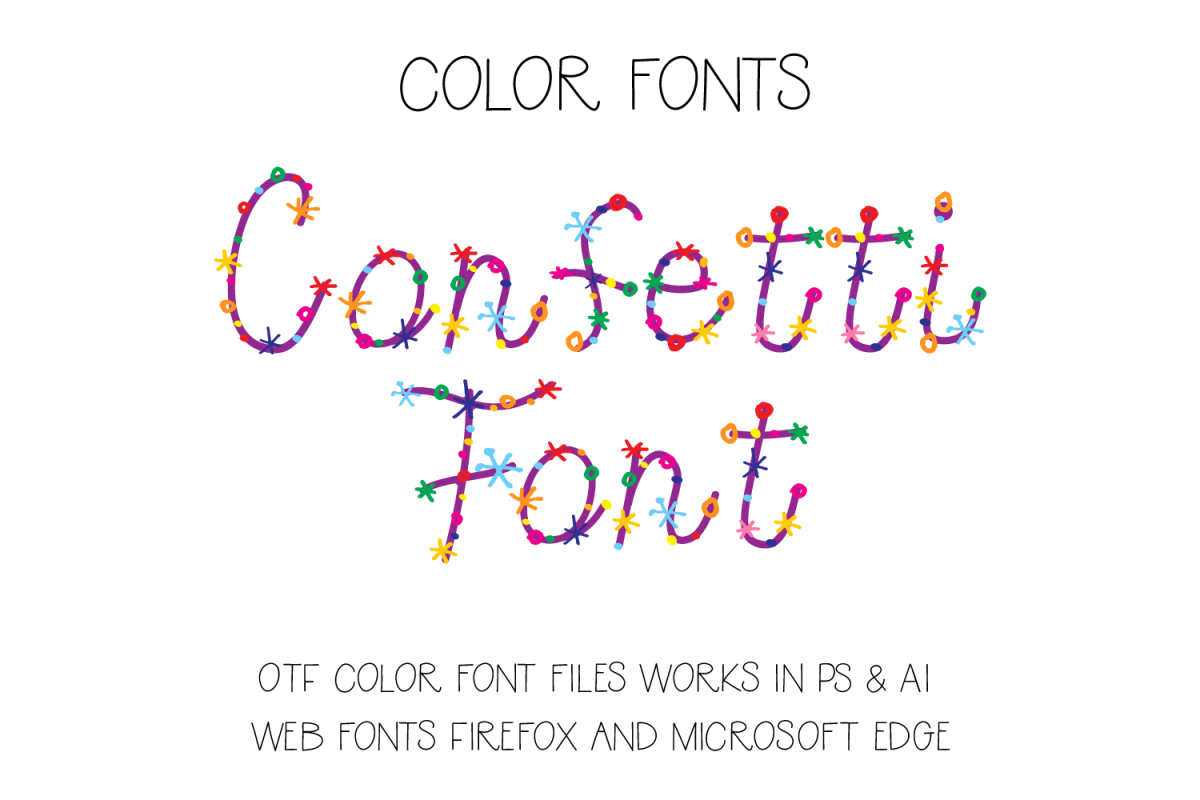
Confetti Font
Confetti
COLOR fonts are NEW and great way to add a little excitement to your designs. I've created a font that is very colorful and is ready for any celebration. At the present time color fonts work only in Photo Shop and Illustrator, I'm sure more and more programs will update their software to include color fonts.